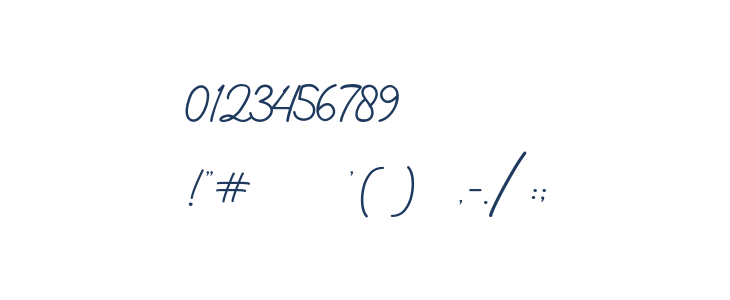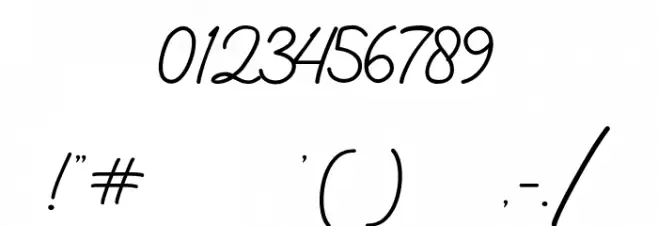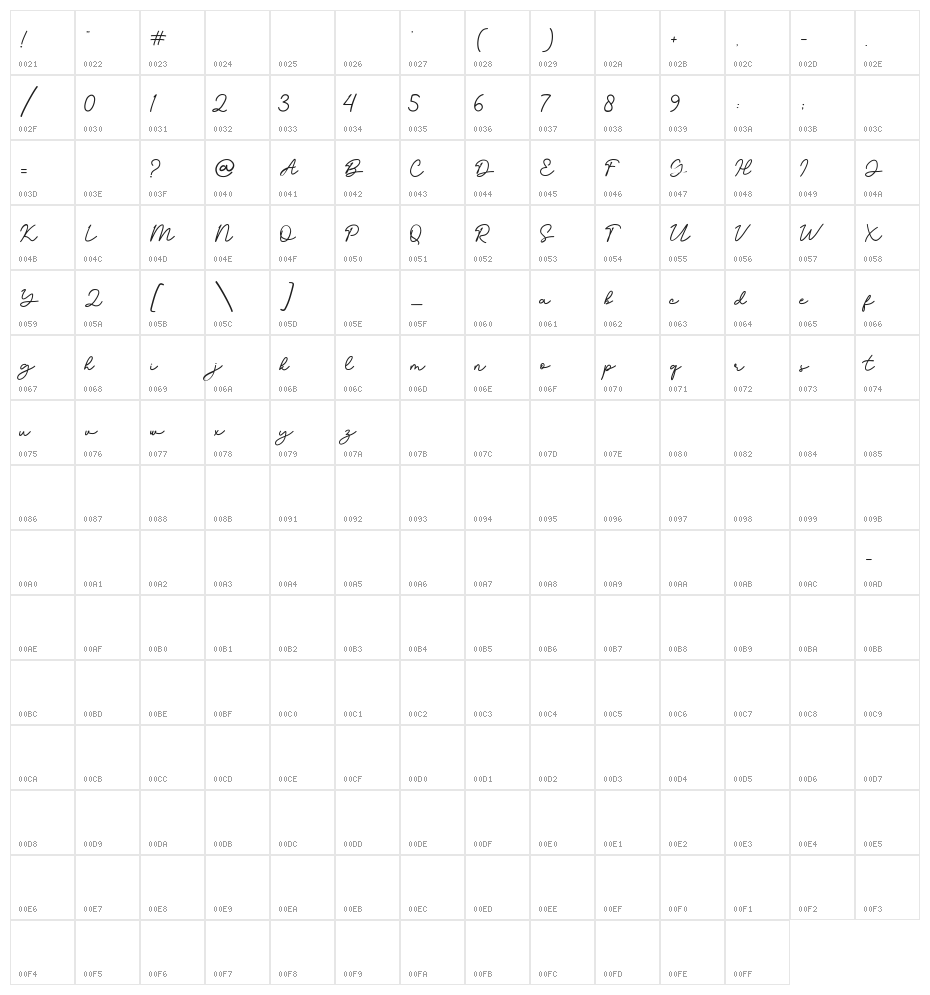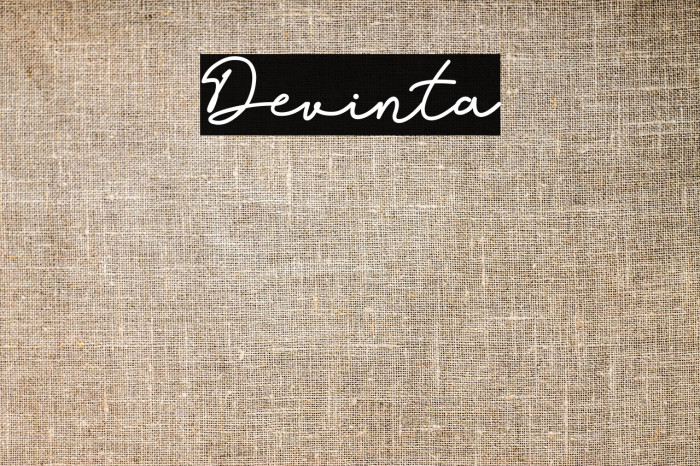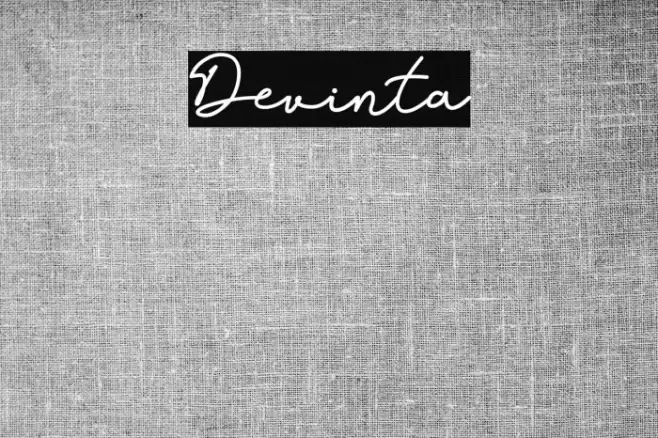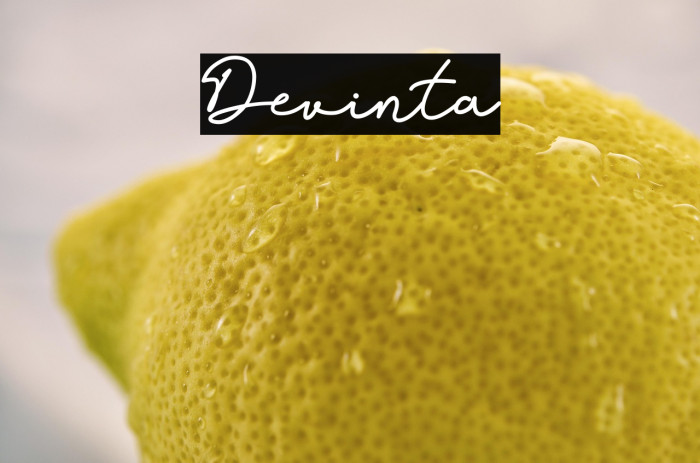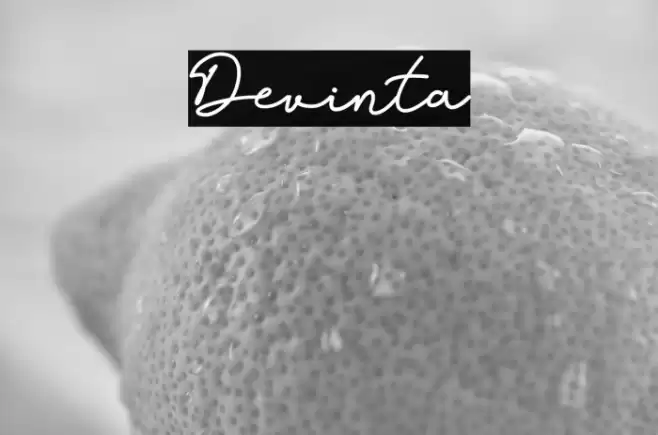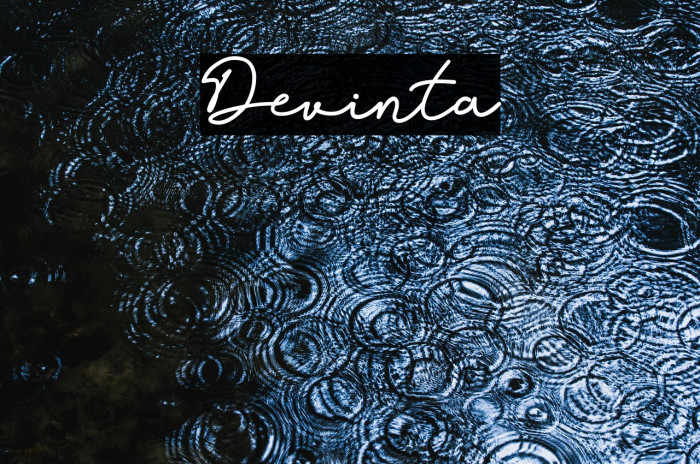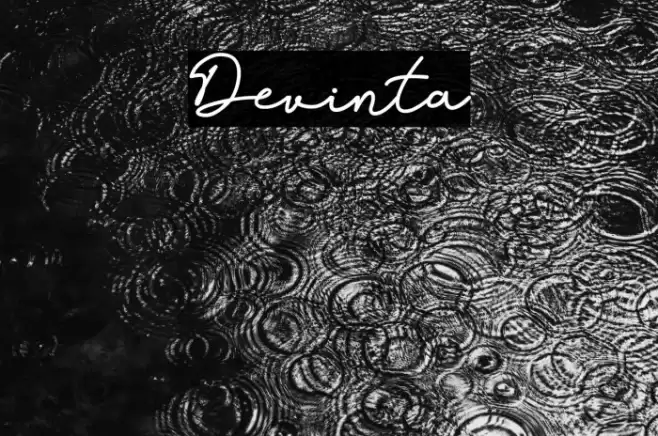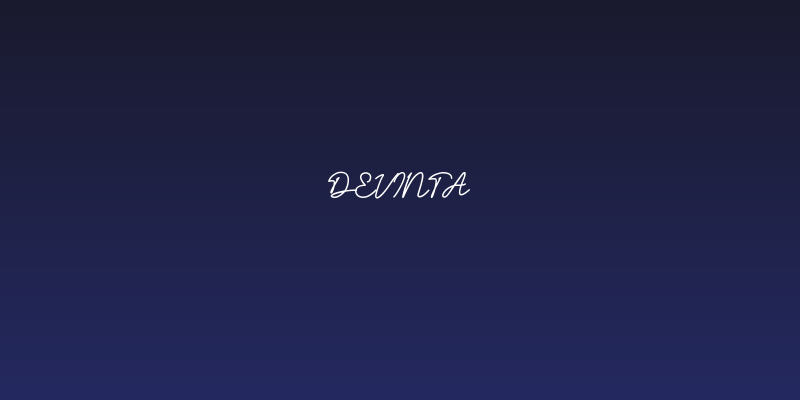
Devinta Font
Devinta Description
This font features a flowing, cursive style that mimics elegant handwriting. The uppercase letters are bold and slightly slanted, with smooth, connected strokes that create a sense of fluidity and grace. The lowercase letters maintain this connected style, offering a consistent and harmonious look throughout. The numerals and special characters are designed to match the cursive theme, ensuring a cohesive appearance. This font exudes a sense of sophistication and is ideal for projects that require a personal, handwritten touch.